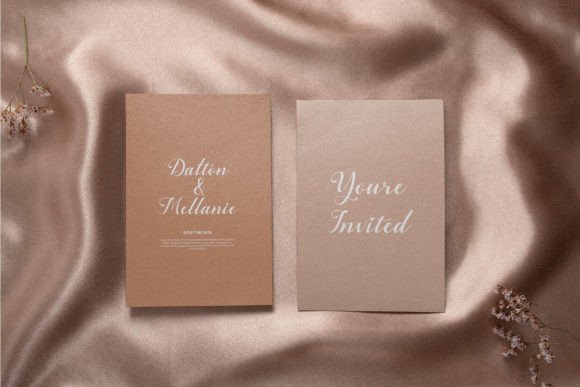
Yellow Molly Font
Yellow Molly is a beautiful and light handwritten font with a unique feel and a stunning impact. It will add a luxury spark to any design project that you wish to create!